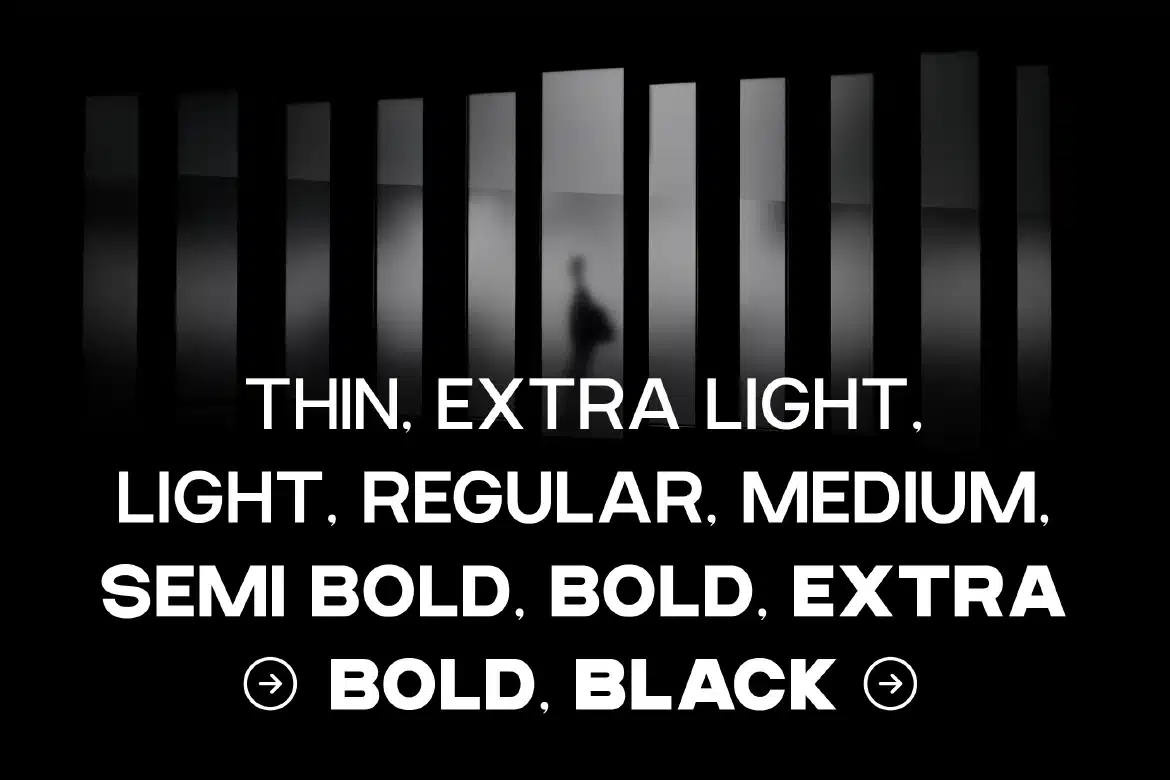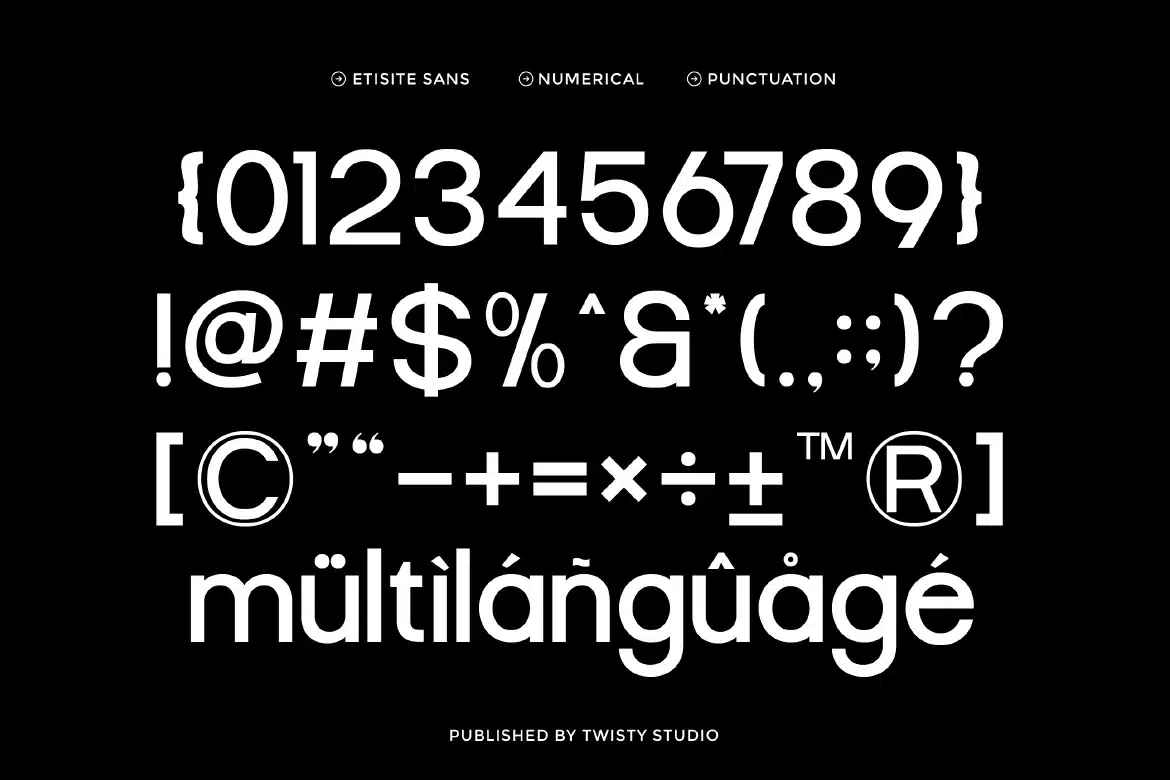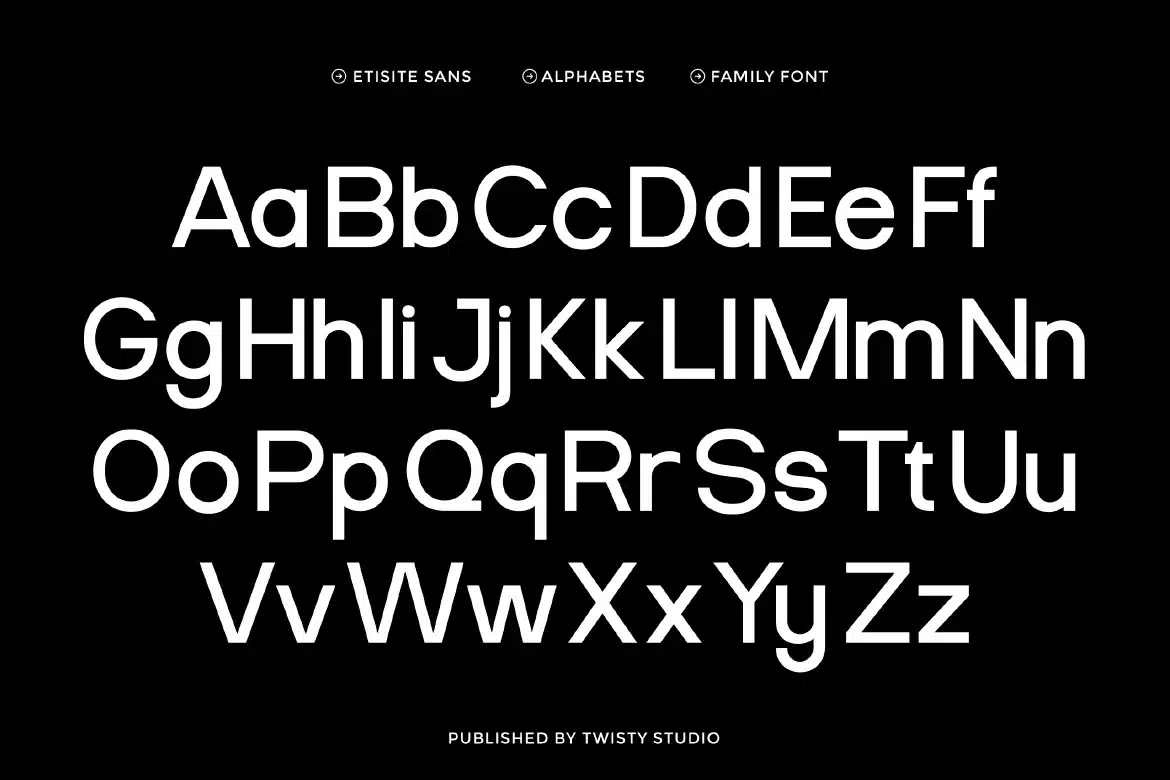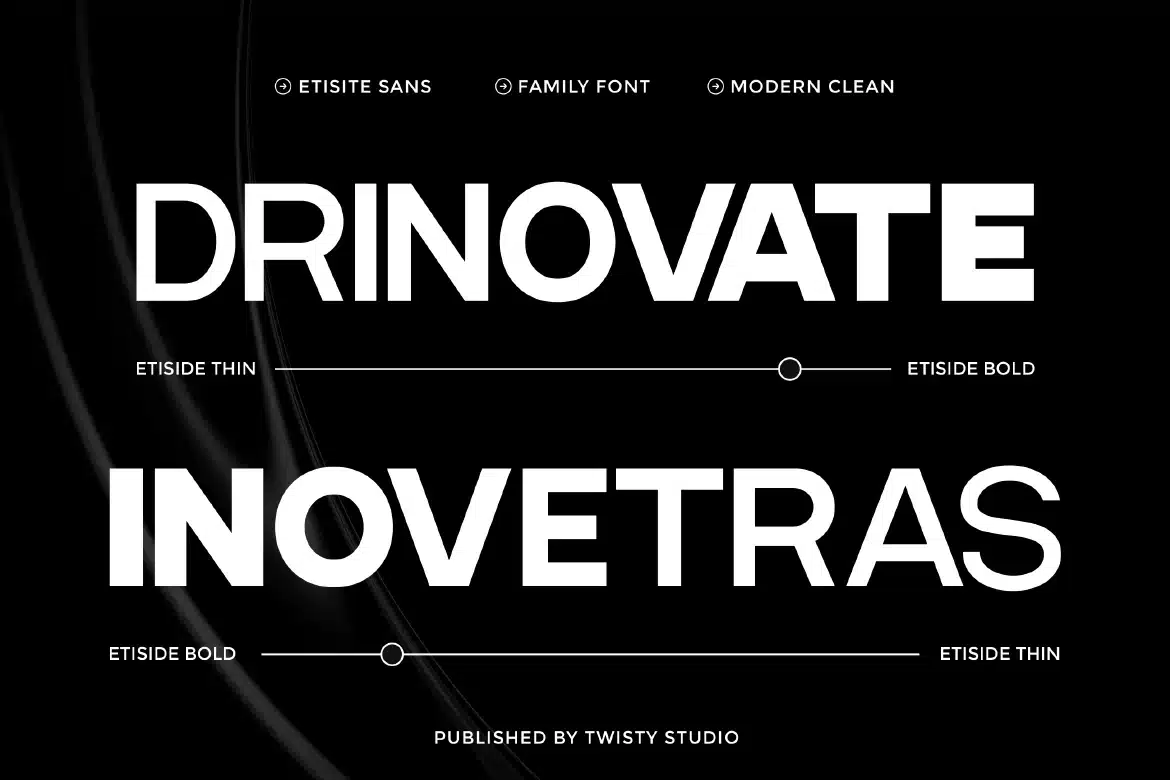
Clean Sans Serif Family Font – Etisite
Clean Sans Family Font - Etisite
Etisite is a clean sans family font designed to deliver clarity, consistency, and modern simplicity across every design. With its smooth lines, balanced proportions, and refined structure, Etisite creates a clean and professional appearance that feels both contemporary and timeless. As a sans font family, Etisite includes multiple weights and styles, allowing you to build a strong visual hierarchy while maintaining a cohesive look. Its minimalist design ensures excellent readability, making it ideal for everything from bold headlines to extended body text.
Who Should Use Etisite?
Etisite is ideal for designers, brands, and creatives looking for a clean and modern sans serif family. It’s especially suited for projects that require consistency, readability, and a polished visual identity.
Brand identity and logo systems
Corporate and business design
Editorial and layout design
Website and UI/UX projects
Packaging and product design
Social media content
Marketing and advertising materials
Clean and modern typography systems